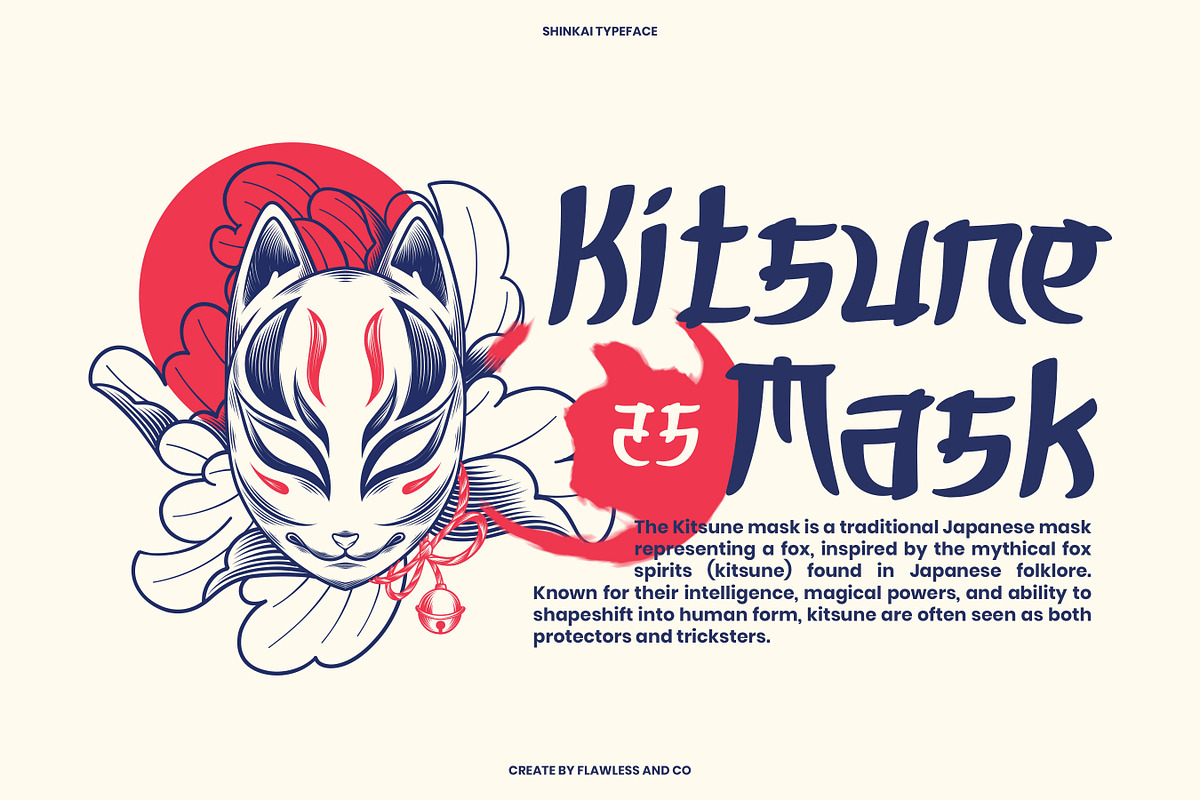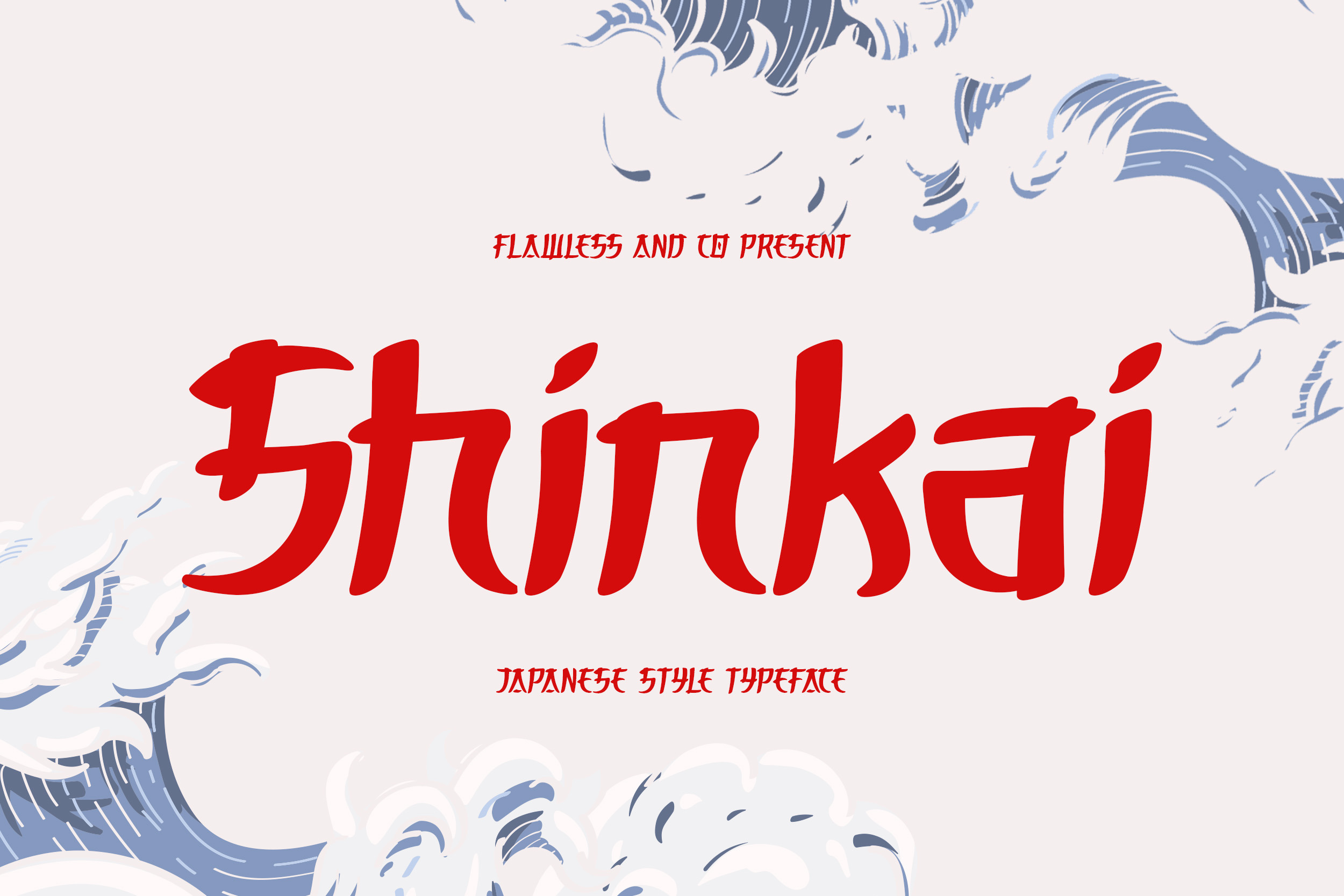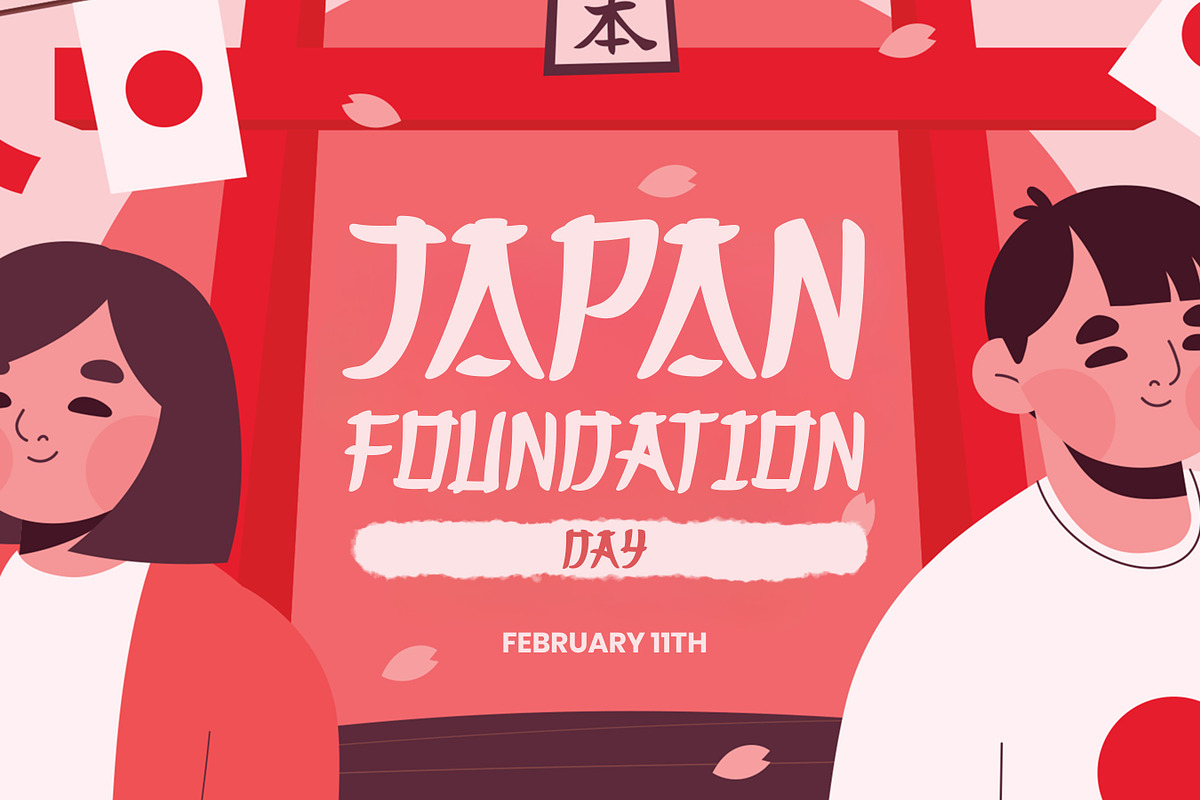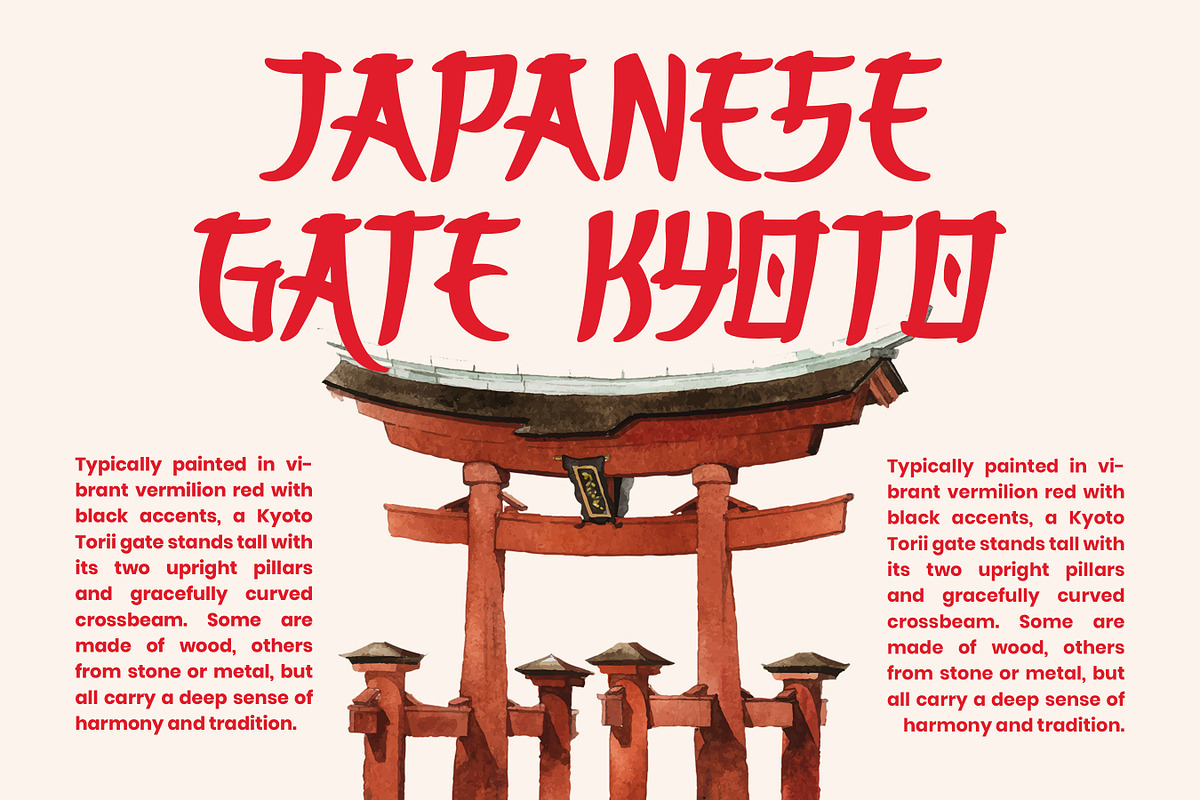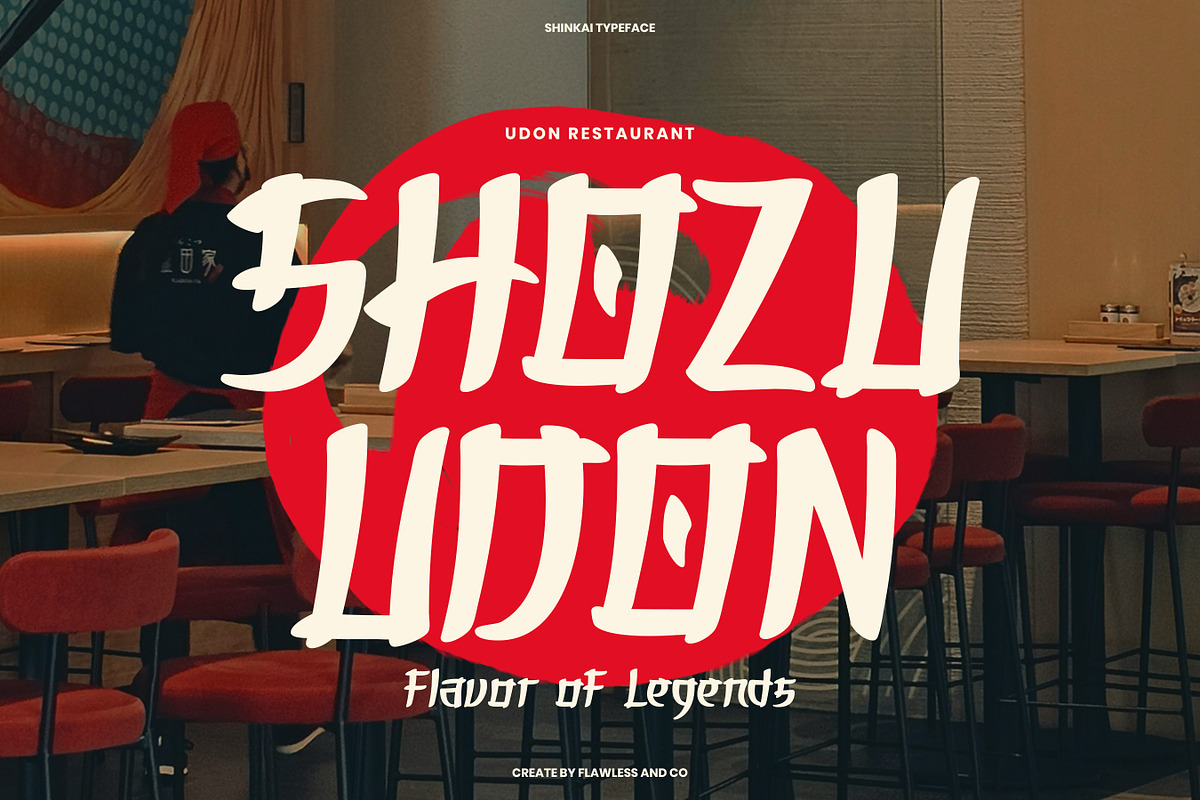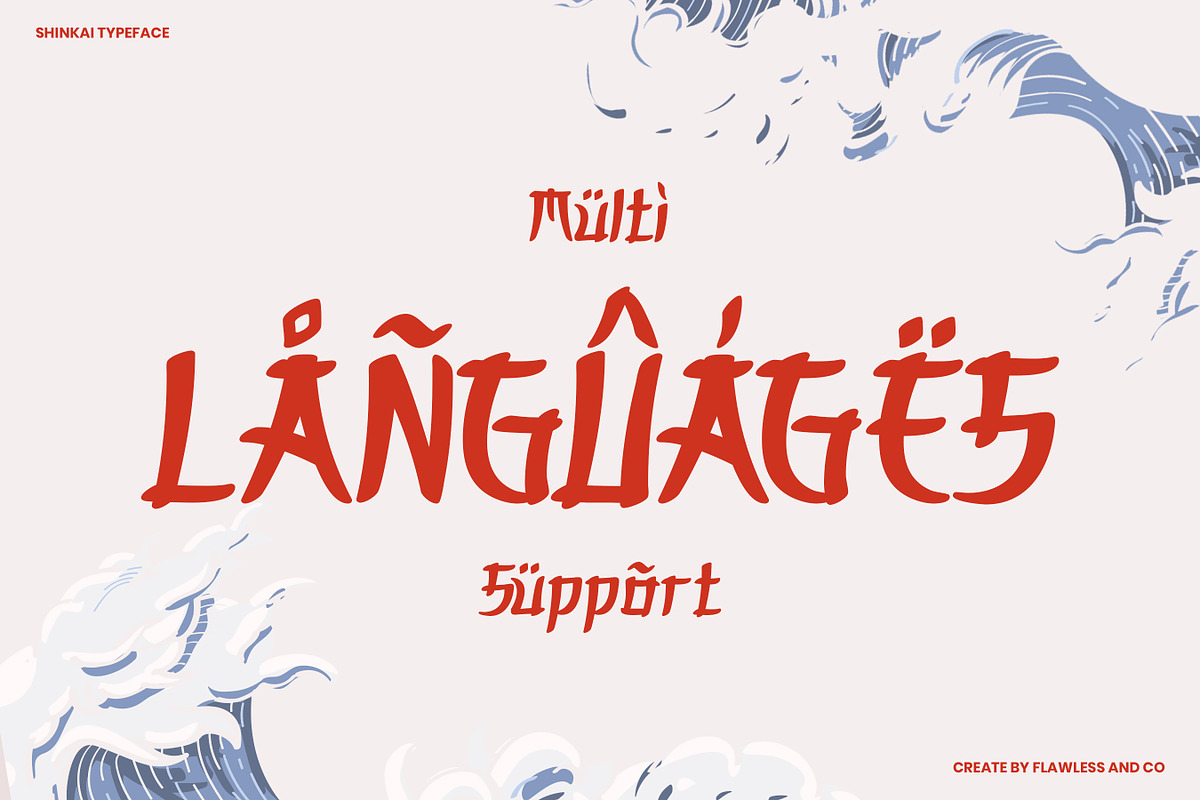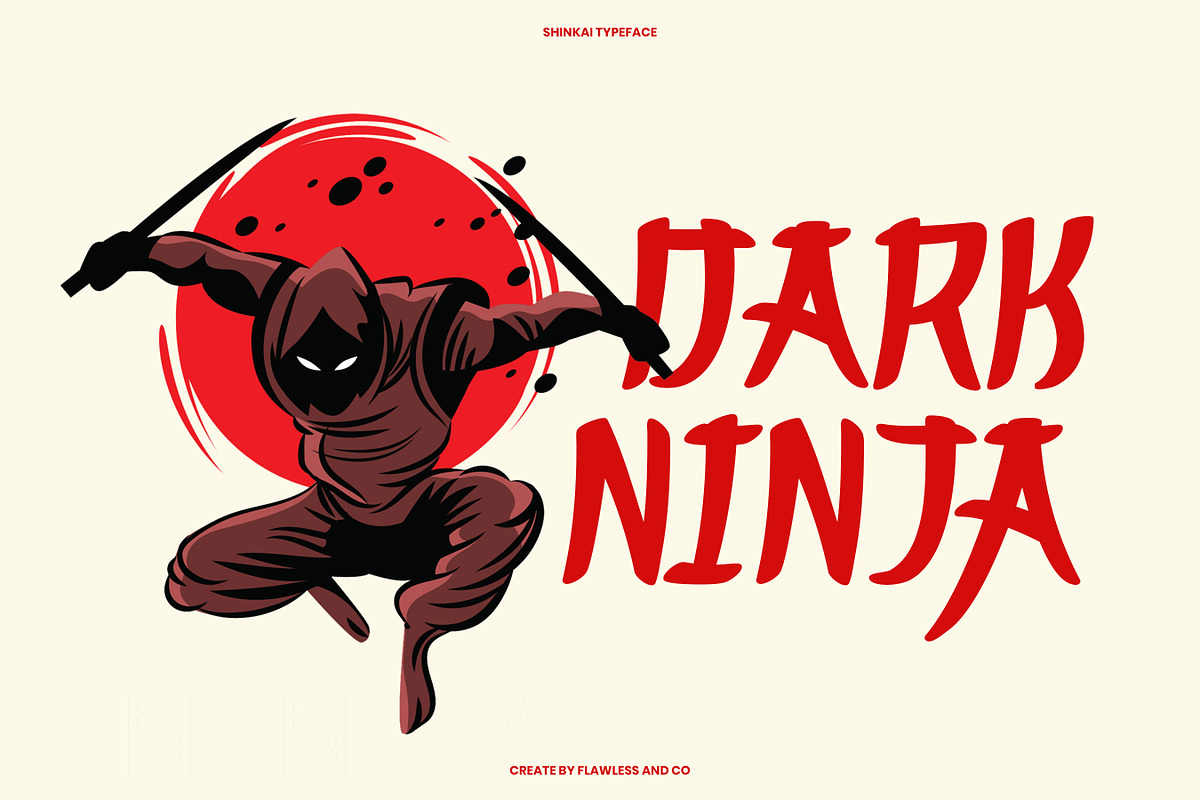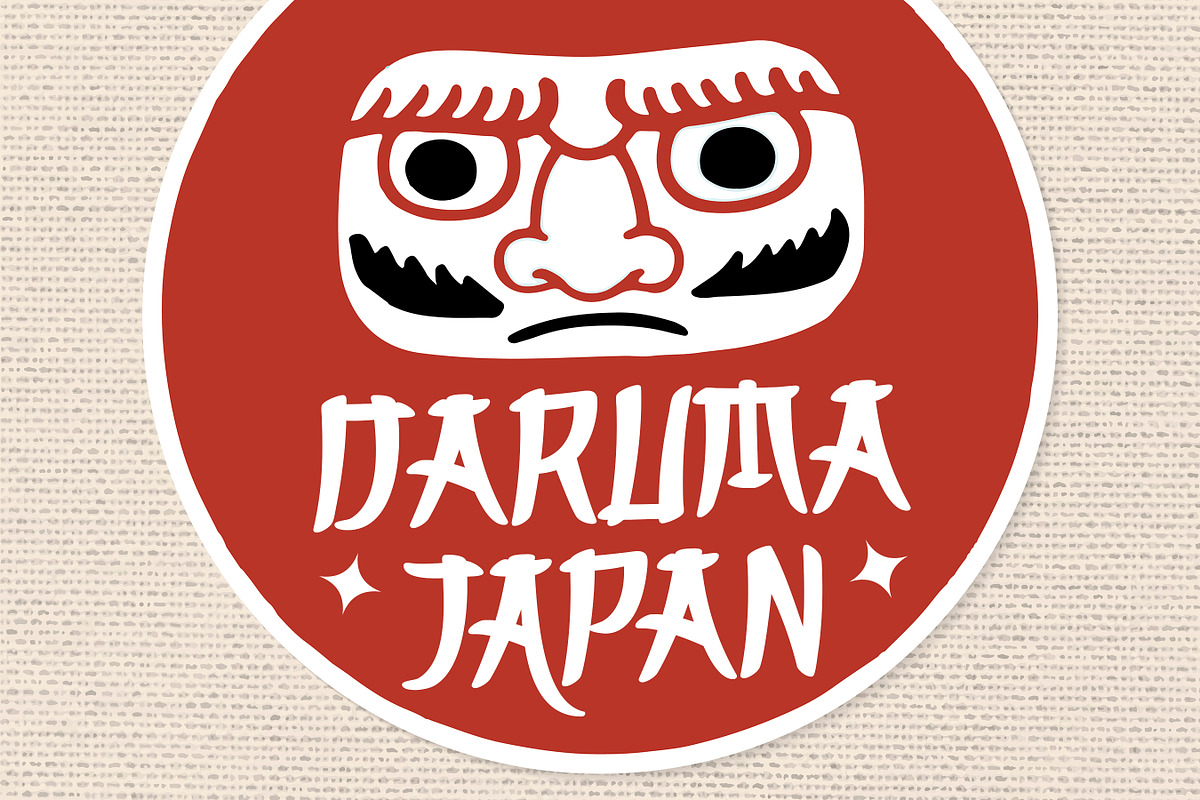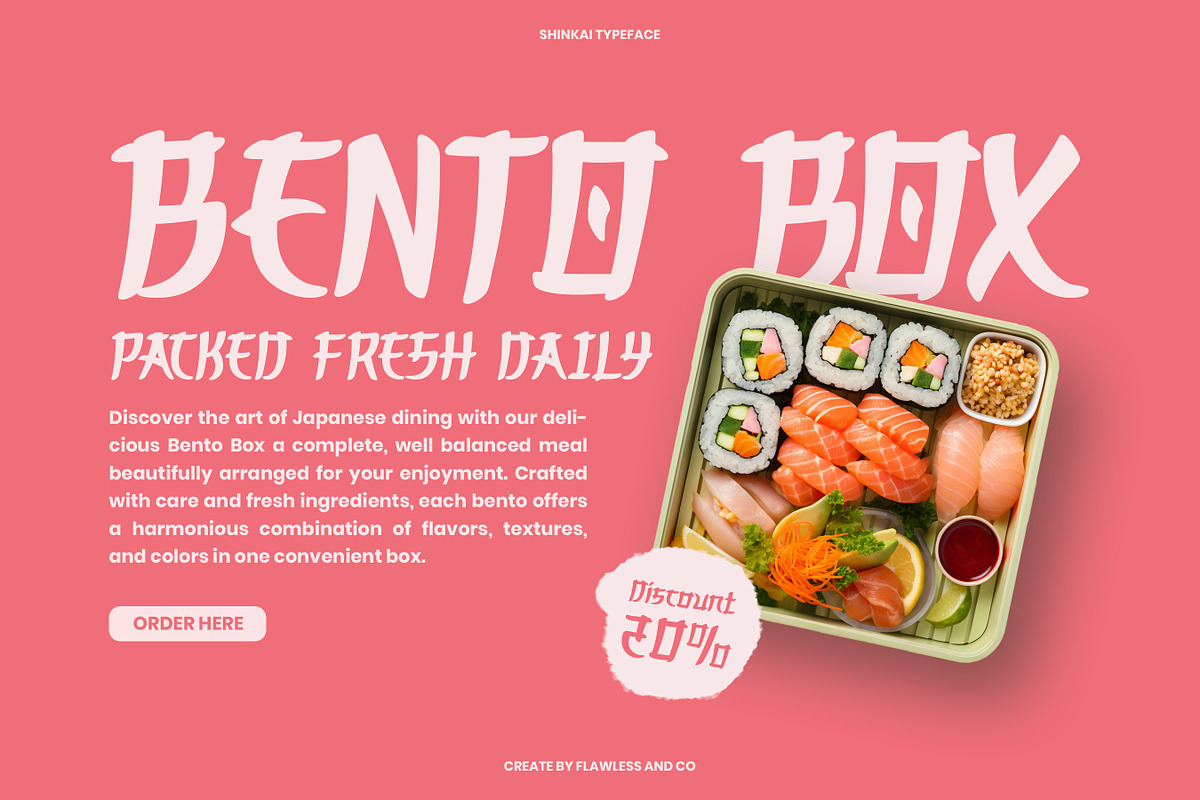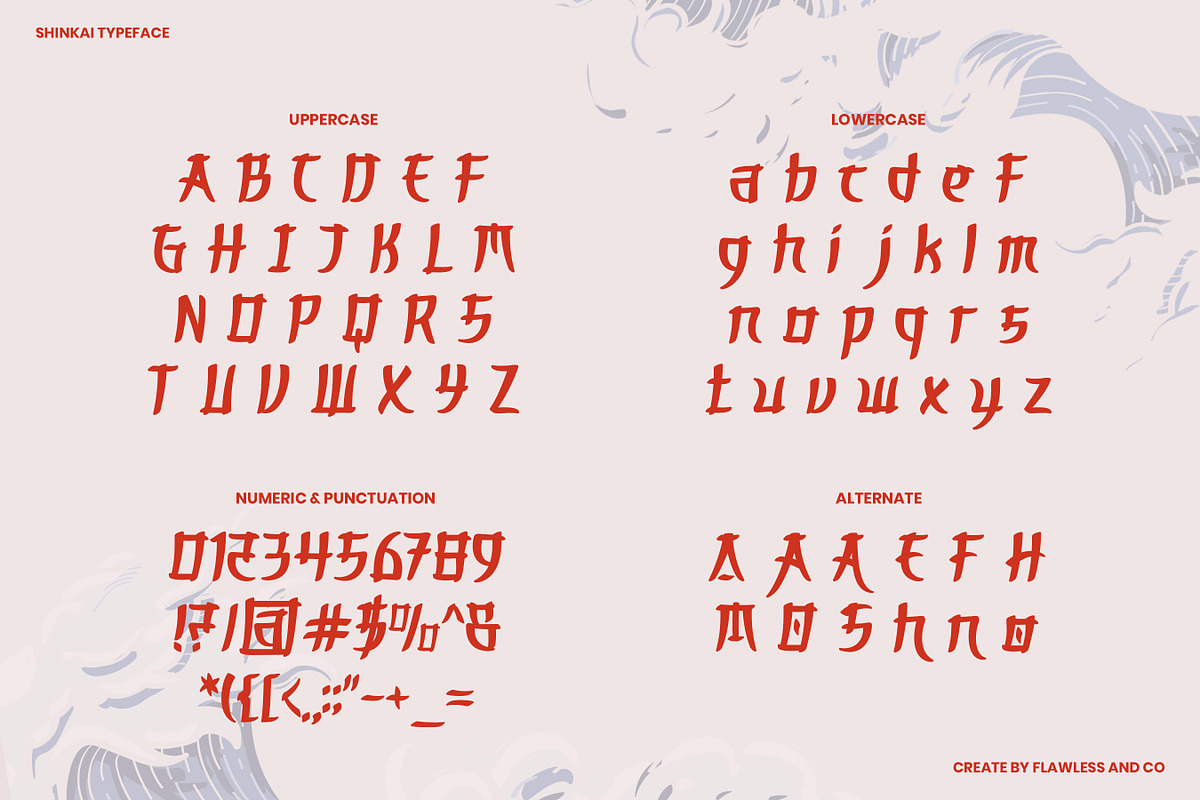
Shinkai - Japanese Style Font
SHINKAI is a bold Japanese-style typeface that blends tradition and modern flair. Inspired by brush strokes and Eastern aesthetics, SHINKAI brings a sense of movement and cultural depth to your design. Perfect for branding, posters, menus, and themed visuals, this font captures the elegance of Japanese calligraphy with a contemporary twist. Add a touch of the East to your next project with SHINKAI's dynamic and expressive letterforms.
Who Should Use SHINKAI?
SHINKAI is perfect for designers, creators, and brands who want to evoke a strong sense of Japanese culture, tradition, or aesthetics in their work. Whether you're working on:
Japanese restaurant branding Asian-themed packaging Travel posters or event flyers Martial arts schools or cultural festivals Anime, manga, or game projects SHINKAI delivers a bold, authentic, and artistic touch. It's ideal for those who seek a typeface that stands out while staying rooted in a distinctive cultural style.
A Must-Have Font for Brand Logo and Food Creators & Designers
SHINKAI is more than just a typeface — it’s a visual statement. Specially crafted for designers and creators in the culinary and branding world, SHINKAI offers a bold yet graceful letterform that echoes the elegance of Japanese culture. Its dynamic strokes and brush-inspired shapes make it ideal for food-related projects such as restaurant logos, packaging, menus, and social media campaigns. Whether you're building a sushi brand, launching a ramen shop, or curating an Asian food product line, SHINKAI delivers authenticity, style, and impact — all in one powerful typeface. Let your brand speak with flavor and identity through SHINKAI.
Why Choose SHINKAI for Brand and Logo Projects?
SHINKAI offers bold, brush-style strokes that give your brand a distinct identity with a touch of Japanese tradition. Perfect for restaurant logos, food packaging, and lifestyle branding, it blends authenticity with modern appeal — making your designs stand out with clarity and cultural depth.
SUITABLE FOR:
SHINKAI is the perfect choice for a wide range of creative and branding needs. Whether you're designing for:
- Japanese or Asian-themed restaurants & food brands
- Logo design with cultural flair
- Packaging for snacks, sauces, or beverages
- Menus, signage, and in-store displays
- Anime, manga, or game titles
- Event promotions, cultural festivals, or travel campaigns
- Lifestyle brands, apparel, or merchandise